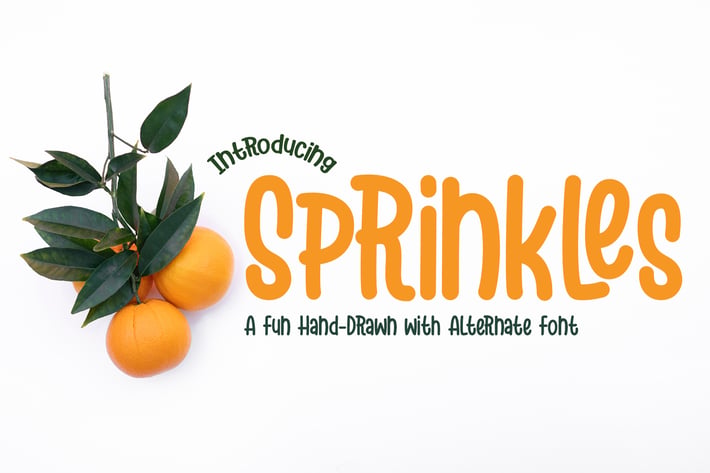
Sprinkles - Hand-Drawn Font
Sprinkles is a hand-drawn with alternates font. Fall in love with its incredibly versatile style and use it to create beautiful designs!
It’s a great font for fashion, apparel projects, signature, album cover, logo, branding, magazine, social media, & advertisements, but also works great for other projects. Fall in love with its incredibly versatile style and use it to create beautiful designs!
- Basic Latin A-Z and a-z
- Numbers
- Symbols